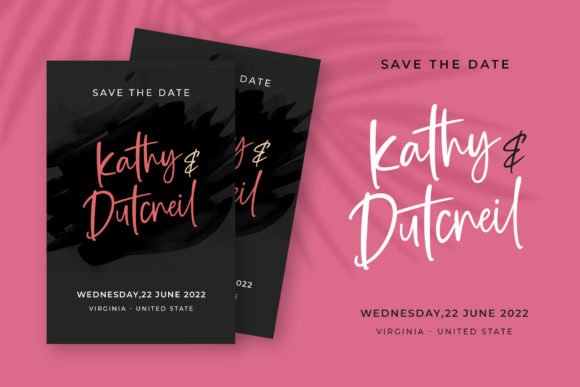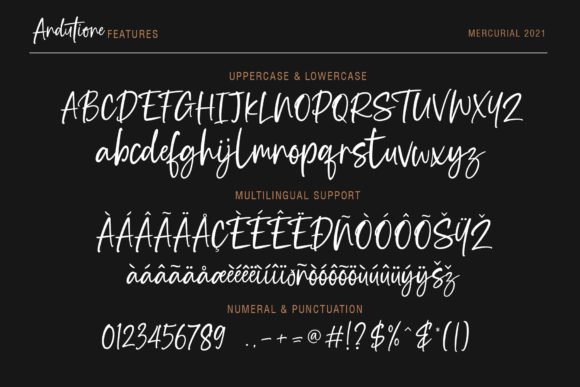
Andutione is a lovely and delicate script font that exudes elegance and class. This font is perfect for those who need a beautiful and refreshing look to their designs. Andutione is PUA encoded, which means you can access all of the amazing glyphs and ligatures with ease!